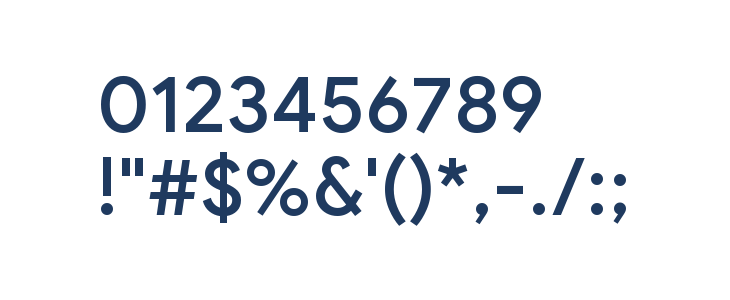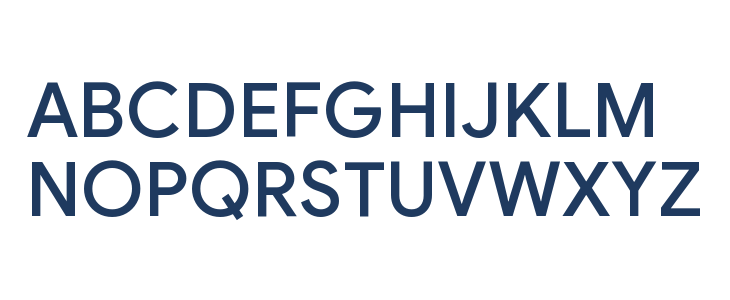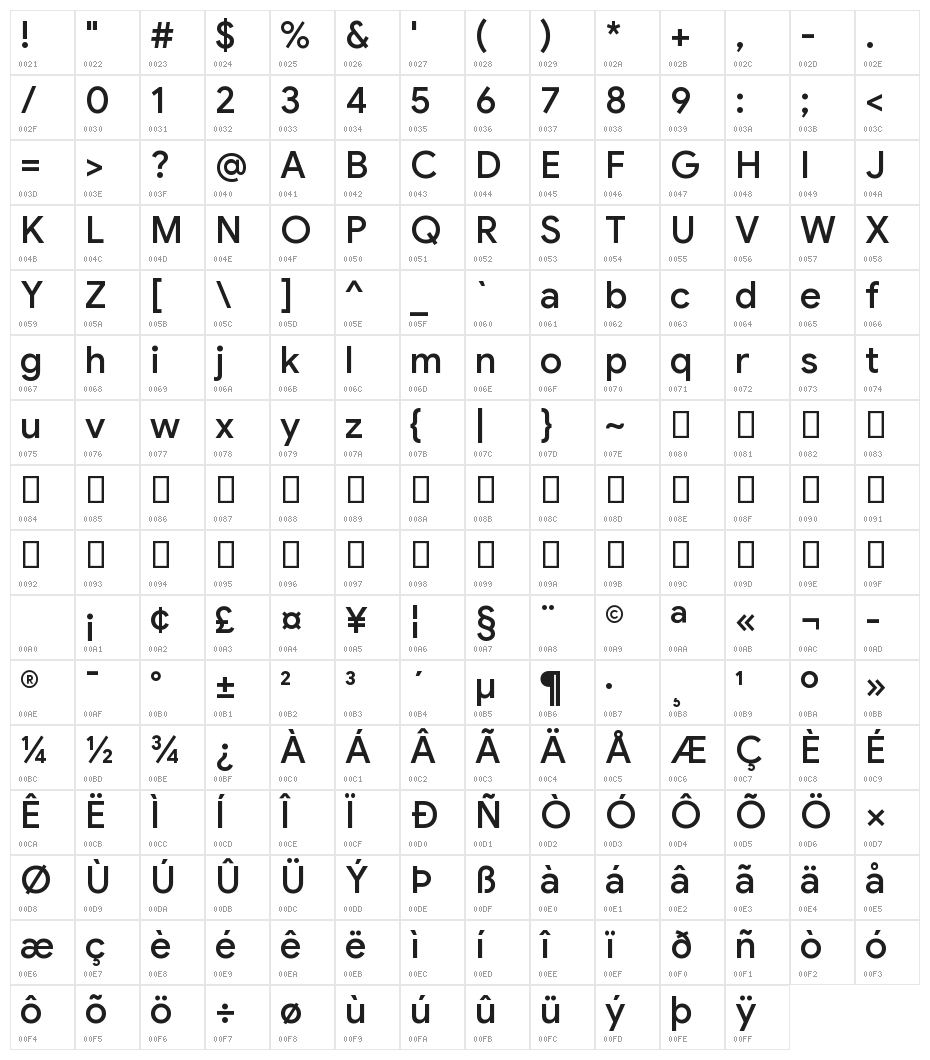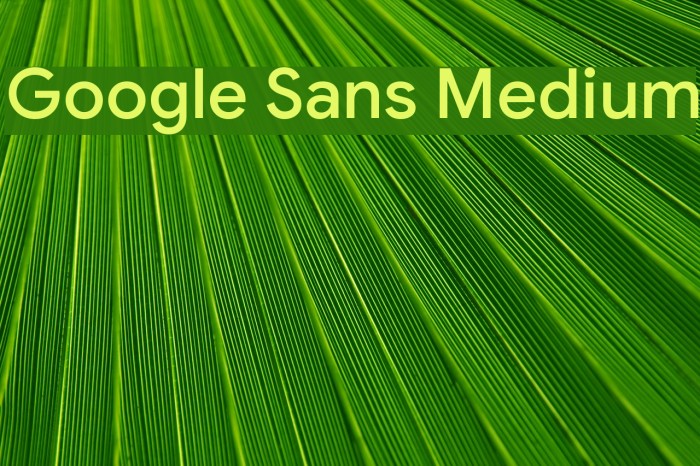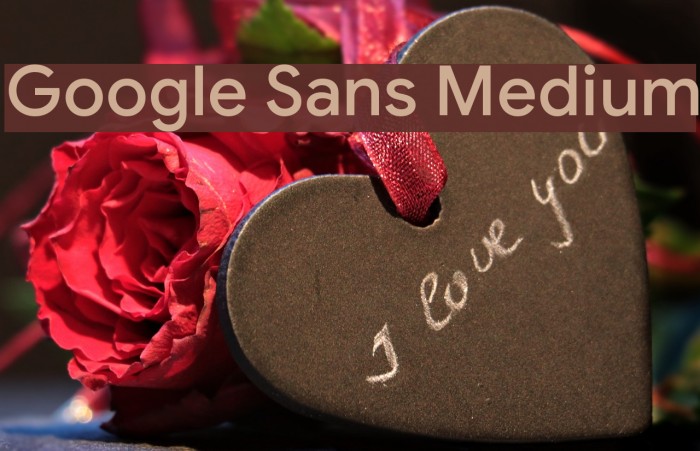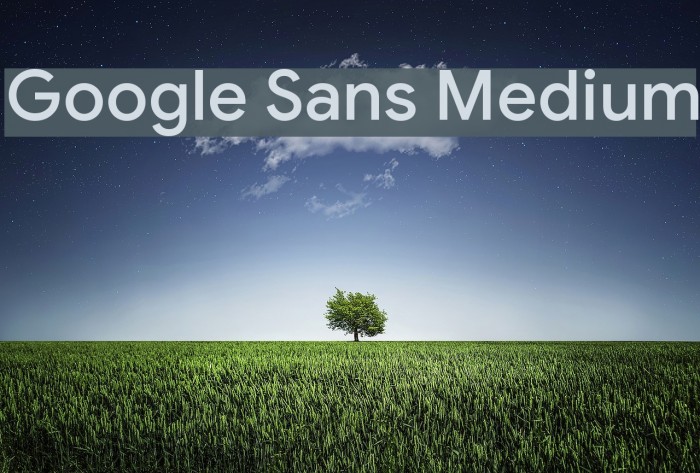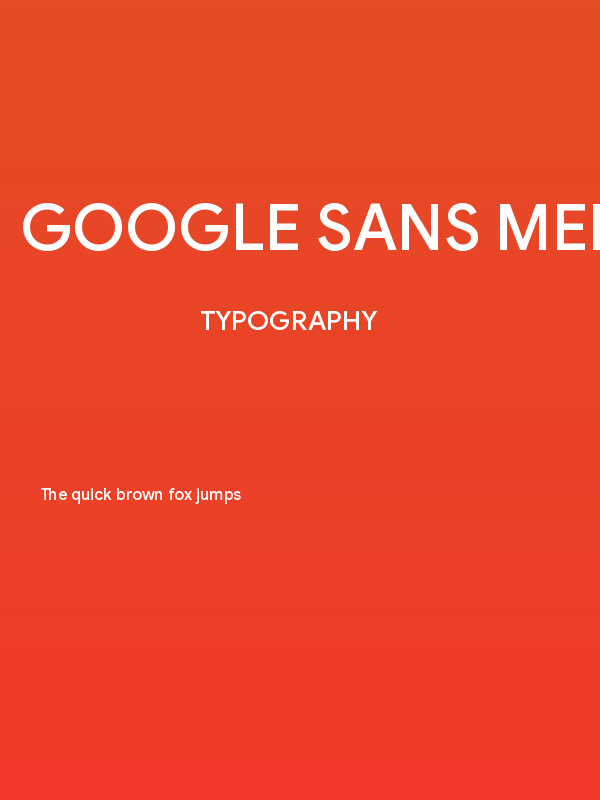
Google Sans Medium Font
Google Sans Medium Description
This font features a clean and modern sans-serif design with a balanced and uniform appearance. The characters are well-proportioned, offering a harmonious blend of geometric shapes and smooth curves. The uppercase letters are bold and assertive, while the lowercase letters maintain a friendly and approachable feel. The numerals are clear and easy to read, making them suitable for various applications. Special characters are distinct and integrate seamlessly with the overall style, enhancing the font's versatility. Its simplicity and clarity make it ideal for digital interfaces and print media.
| Proposed Projects | Ideal for web design, user interfaces, branding, and print materials due to its clarity and modern aesthetic. |